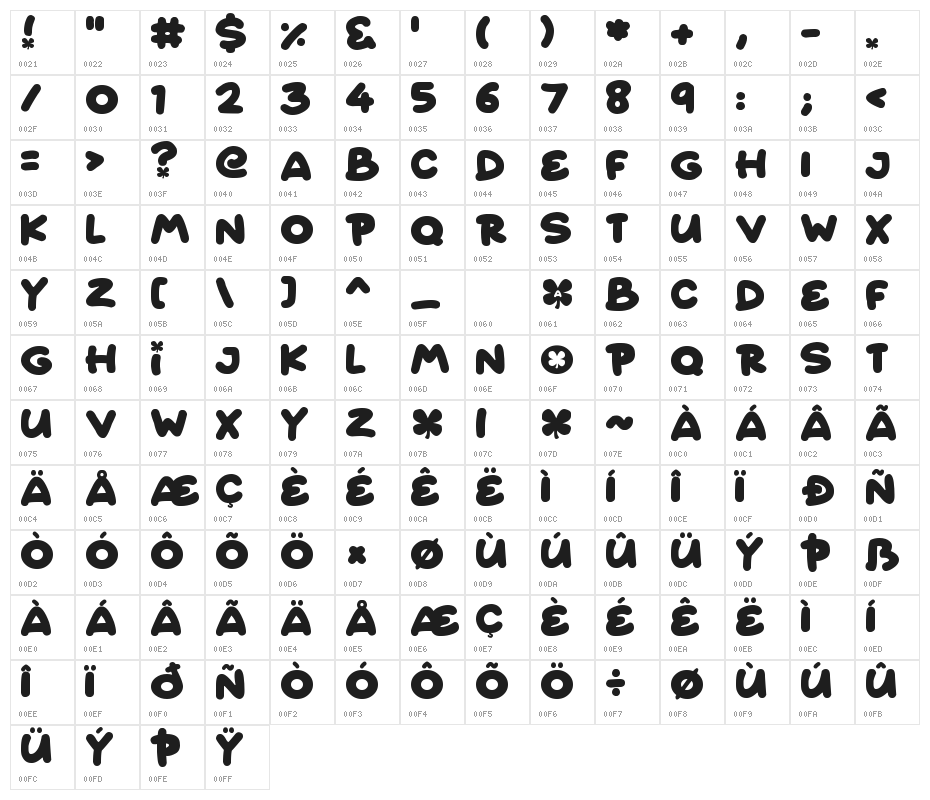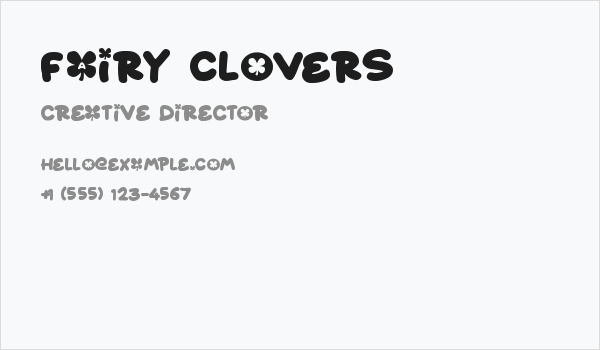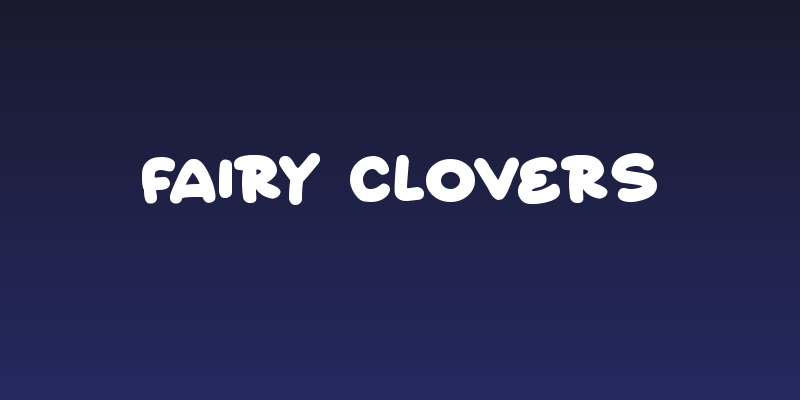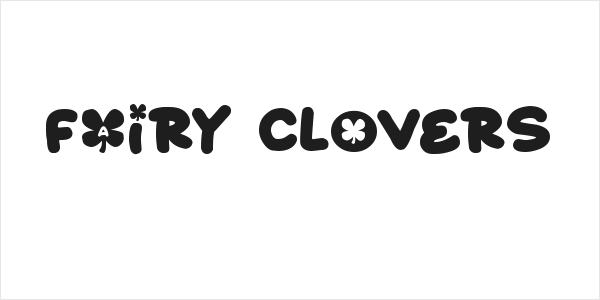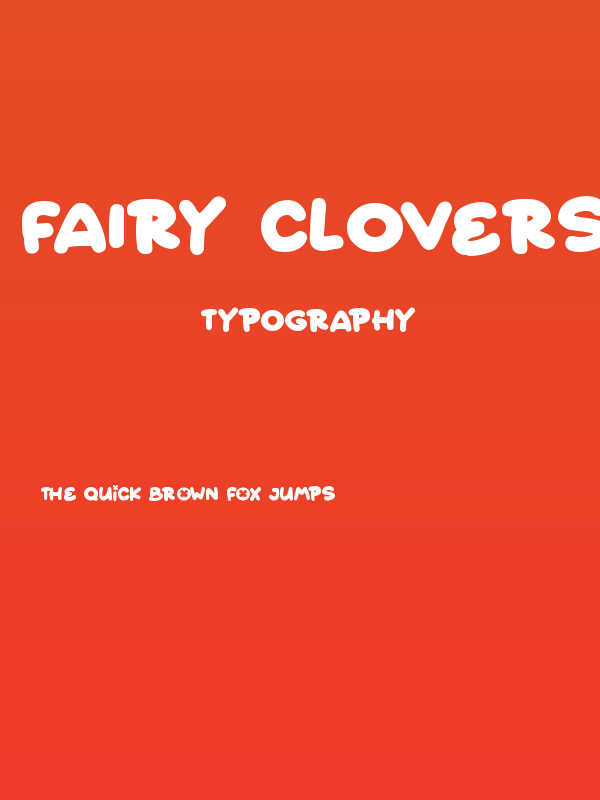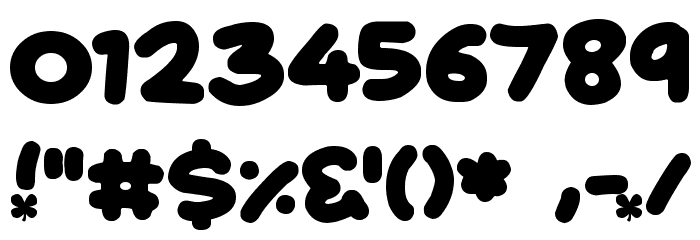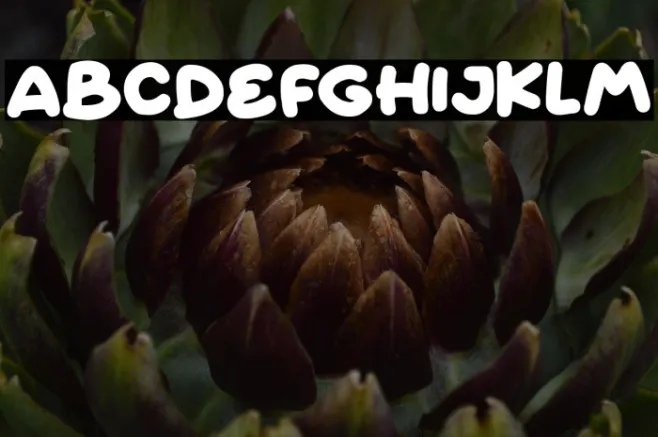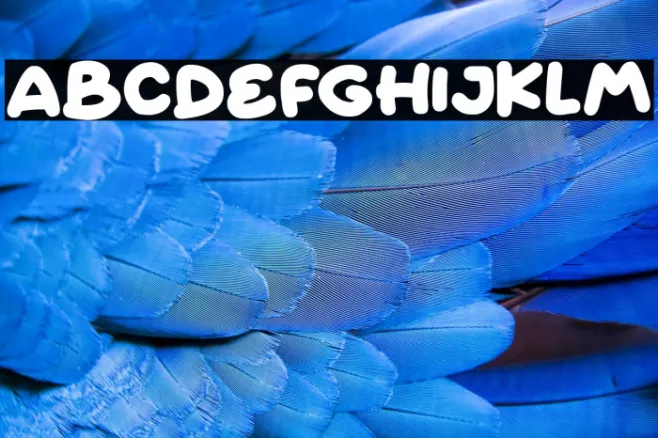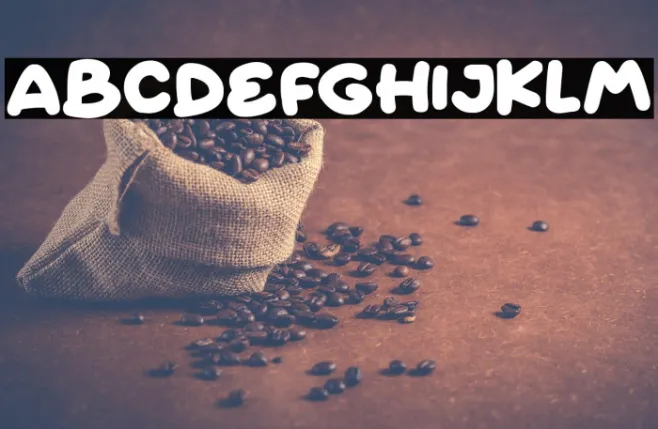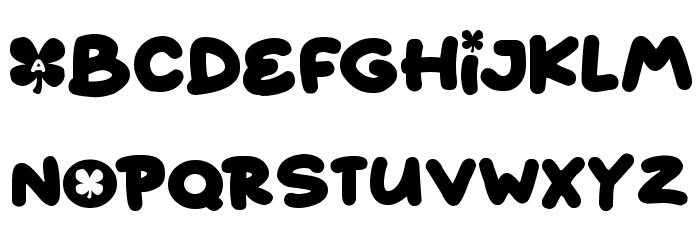
Fairy Clovers Font
Fairy Clovers Description
This playful and whimsical font features bold, rounded characters with a bubbly appearance, reminiscent of cartoon or comic styles. The letters are evenly weighted, with a consistent thickness throughout, giving them a friendly and approachable look. The characters are slightly condensed, which adds to the playful nature of the font. The numbers and special characters maintain the same style, ensuring uniformity across all glyphs. This font is perfect for projects that require a fun and lighthearted touch, such as children's books, playful branding, or party invitations.
| Width | Condensed |
| Overall Style | Playful |
| Proposed Projects | Children's books, playful branding, party invitations, comic strips, and casual posters. |